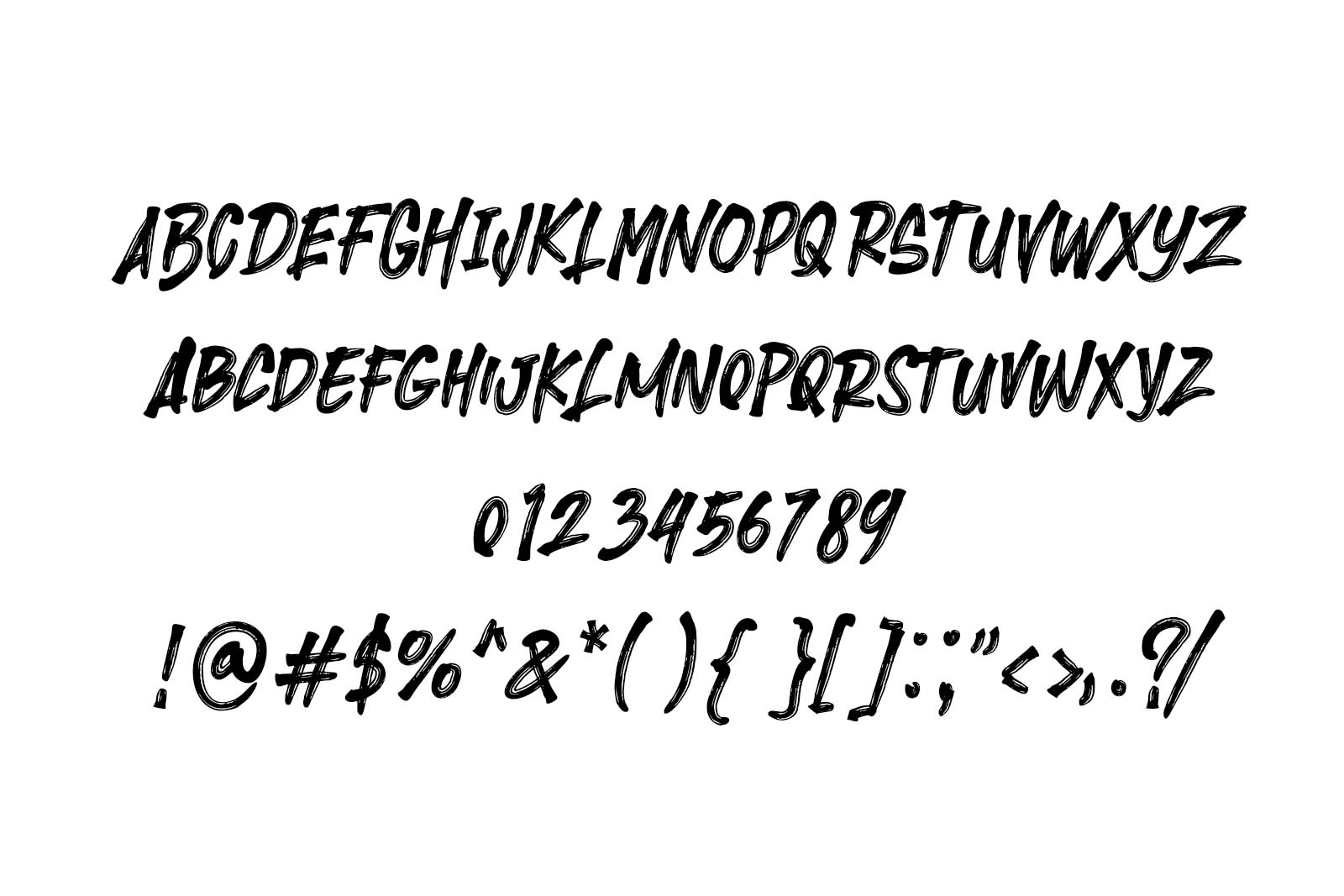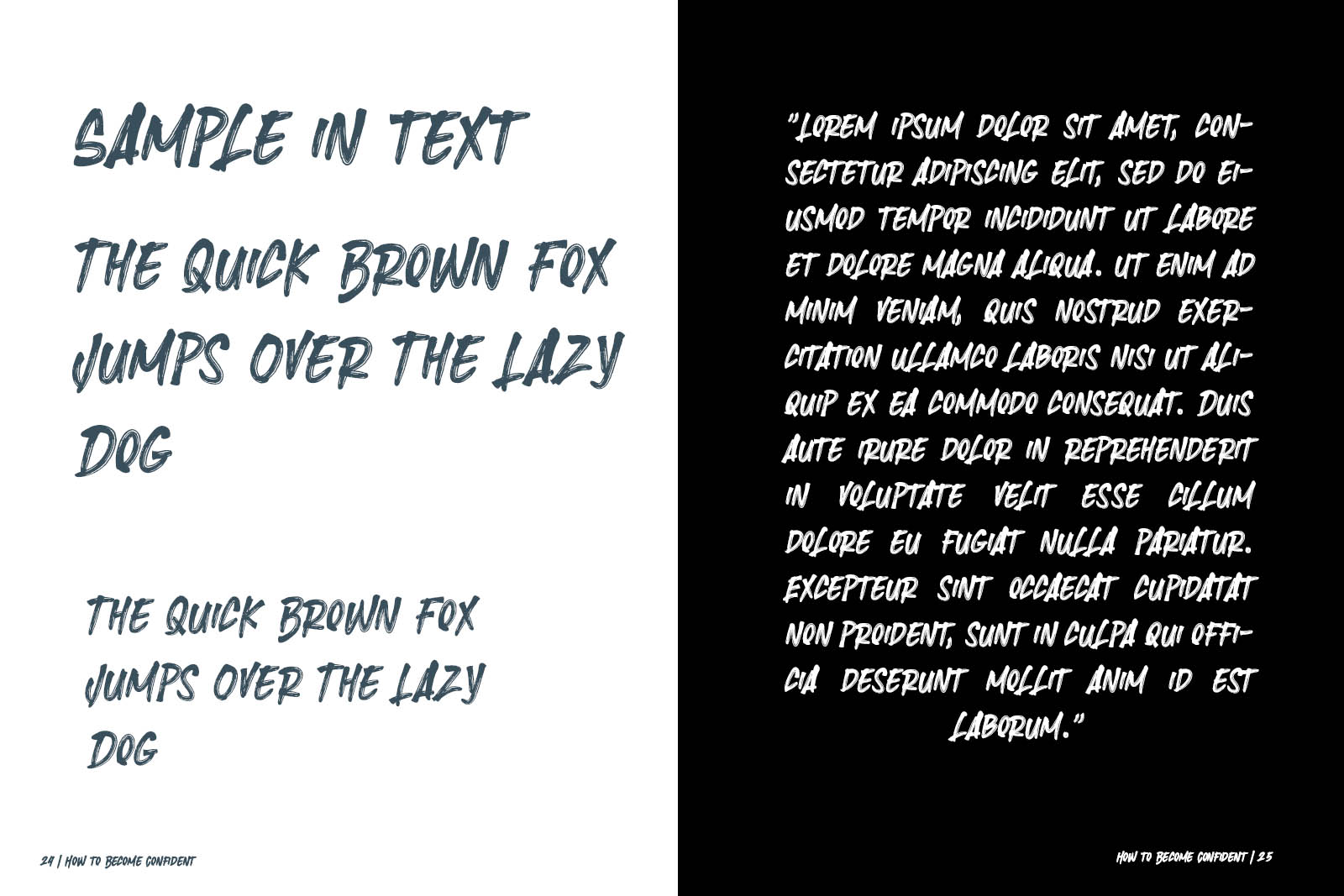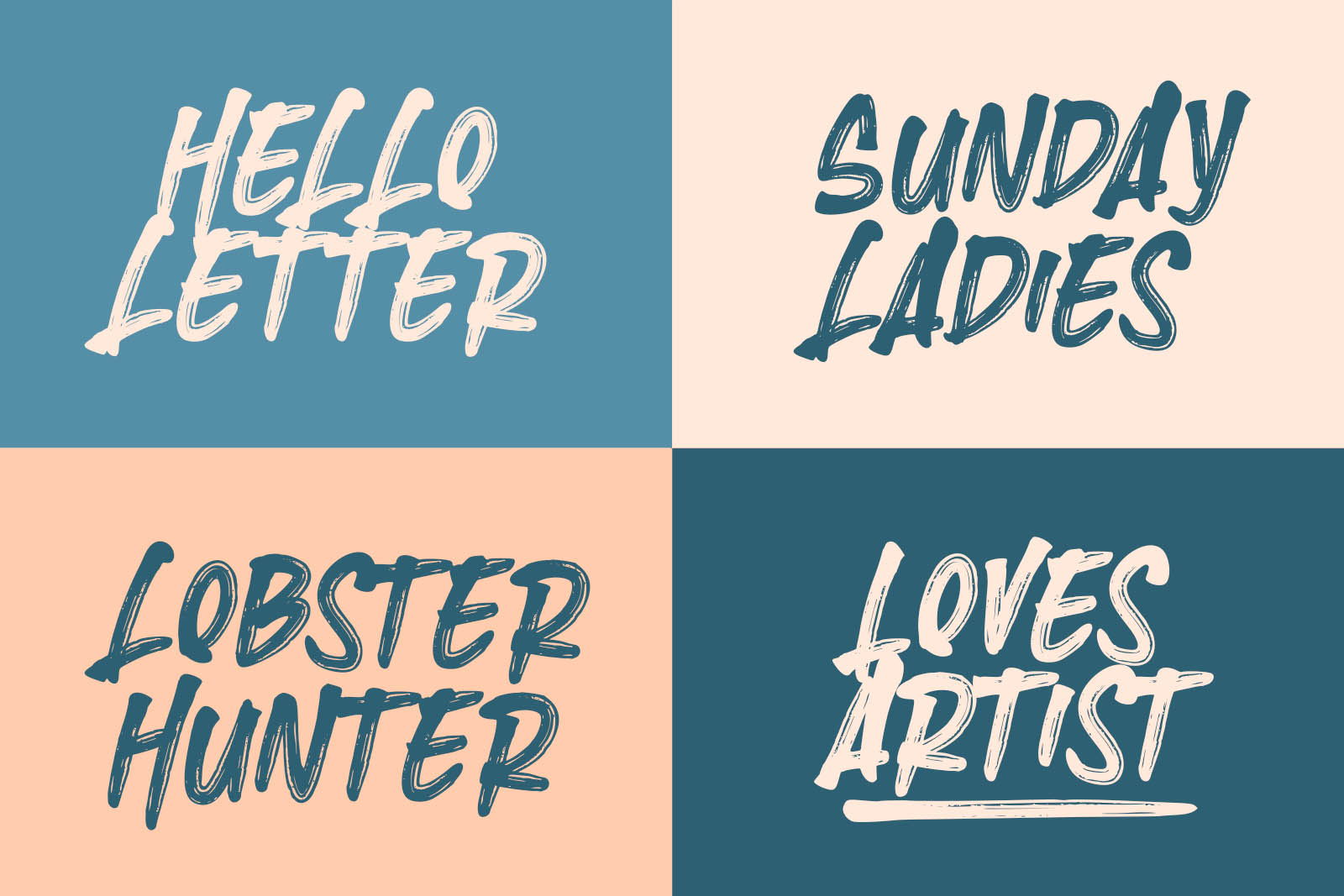
Brush Heats
Brush Heats is an expressive brush-style font with bold strokes and a hand-painted feel. It adds an energetic and raw touch to any design, making it perfect for projects that need a personal, edgy vibe. Whether you're working on posters, branding, apparel, or social media graphics, Brush Heats brings a natural flow and dynamic aesthetic to your work, capturing the intensity and warmth of hand-drawn lettering.